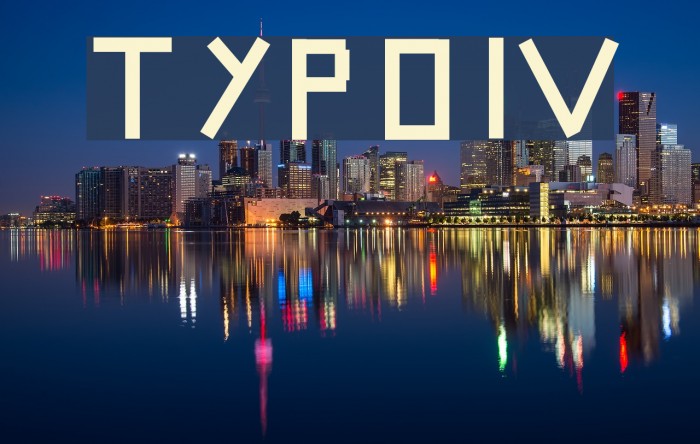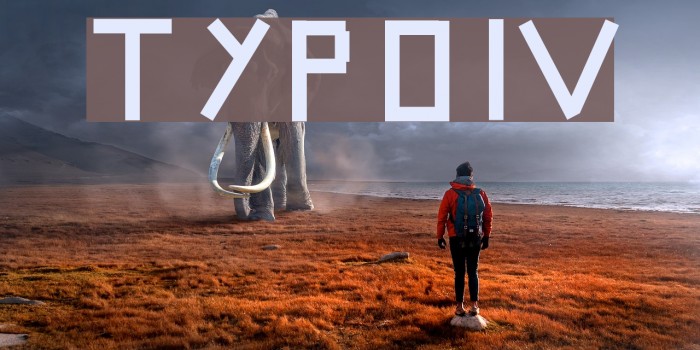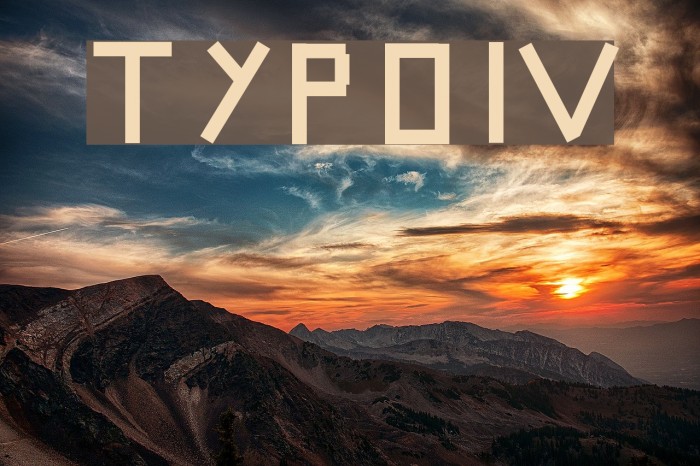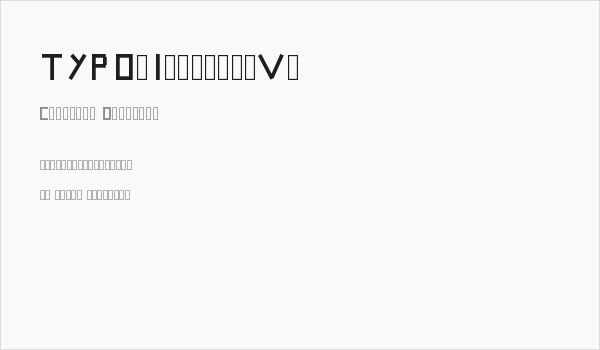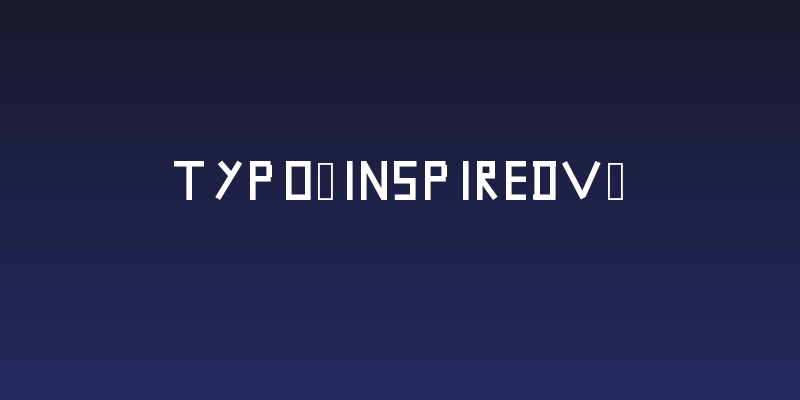
TYPO3InspiredV2 Font
TYPO3InspiredV2 Description
This font features a bold and geometric design, characterized by its angular and block-like letterforms. The uppercase letters exhibit a strong, architectural style with sharp edges and consistent line thickness, giving it a modern, industrial feel. The overall appearance is clean and structured, making it suitable for projects that require a contemporary and assertive aesthetic. The font's design is consistent across all characters, ensuring a cohesive look. Its unique style makes it stand out, especially in digital and print media where a bold statement is needed.
| Proposed Projects | Ideal for branding, posters, headlines, and digital media where a strong, modern look is desired. |